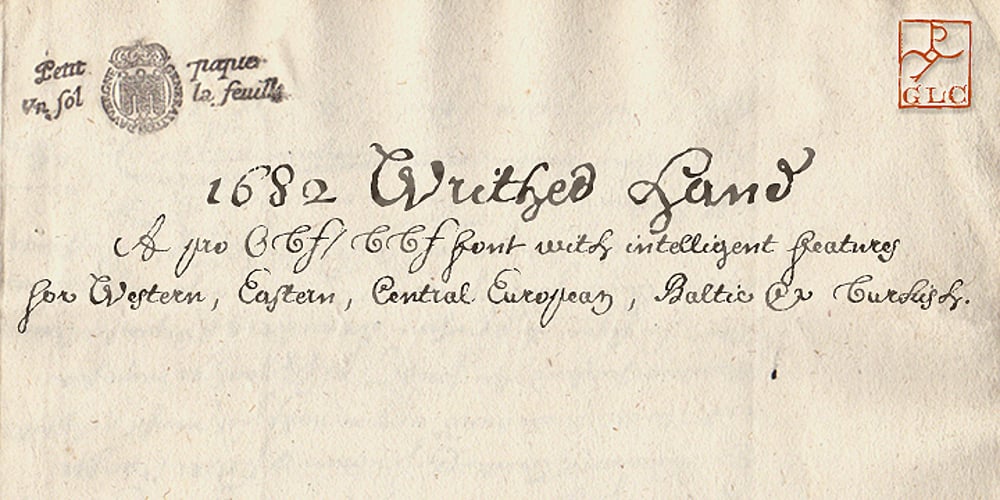
1682 Writhed Hand Font Family was designed by published by GLC. 1682 Writhed Hand contains 1 styles and family package options. This funny font was created inspired from a contract of sale for a field prepared by a French notary in the end of the year 1682 (December seventh). We have worked to transform the almost illegible original form into a contemporary usable typeface, but keeping the special “writhed” appearance. It is a “pro” font containing Western (including Celtic) Eastern and Central European, Icelandic, Baltic, and Turquish diacritics. The numerous OTF alternates and ligatures(about 5 different glyphs or ligatures for almost each basic lower case letter) made the font looking like a real various hand as closely as we can do it.